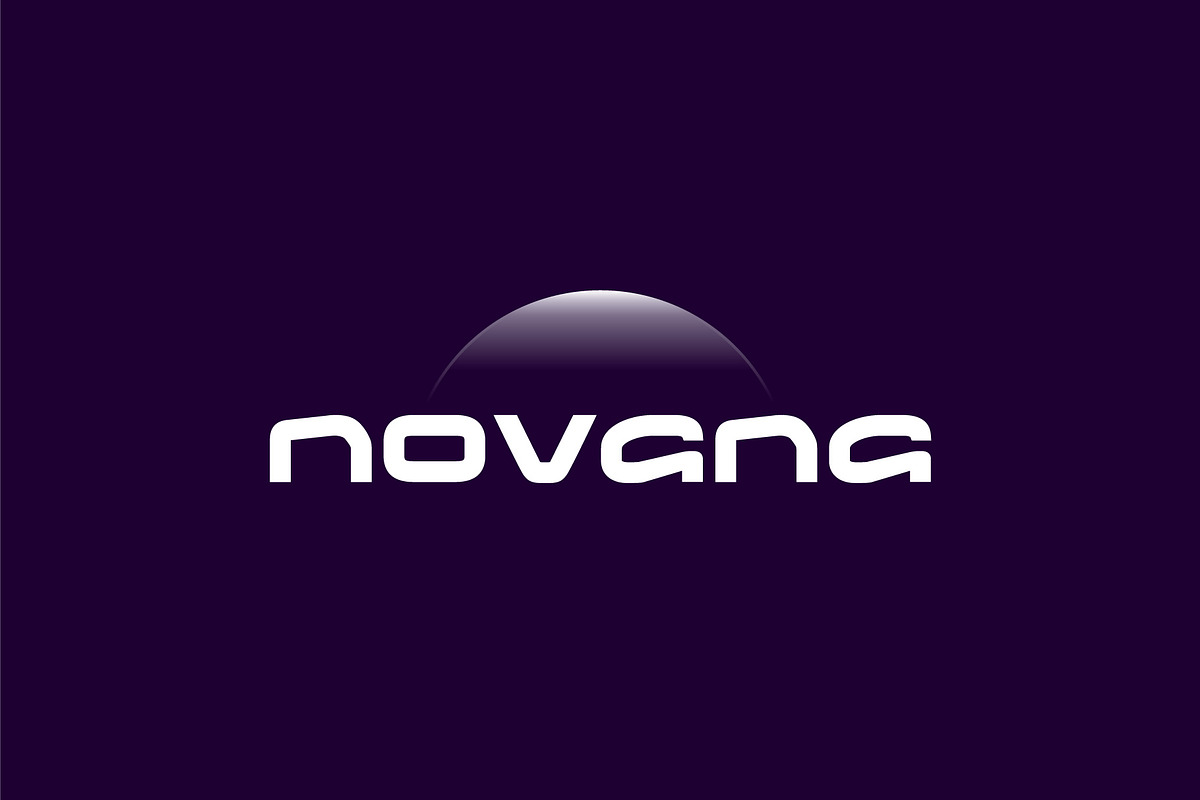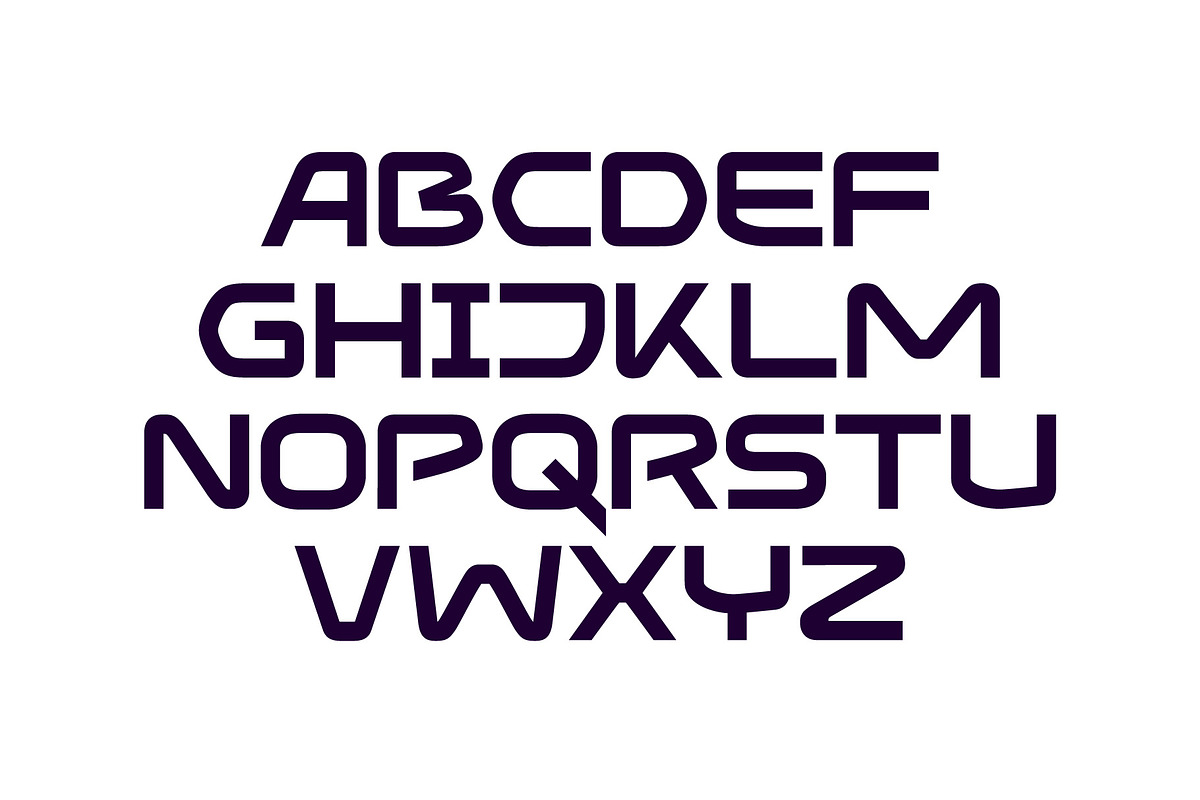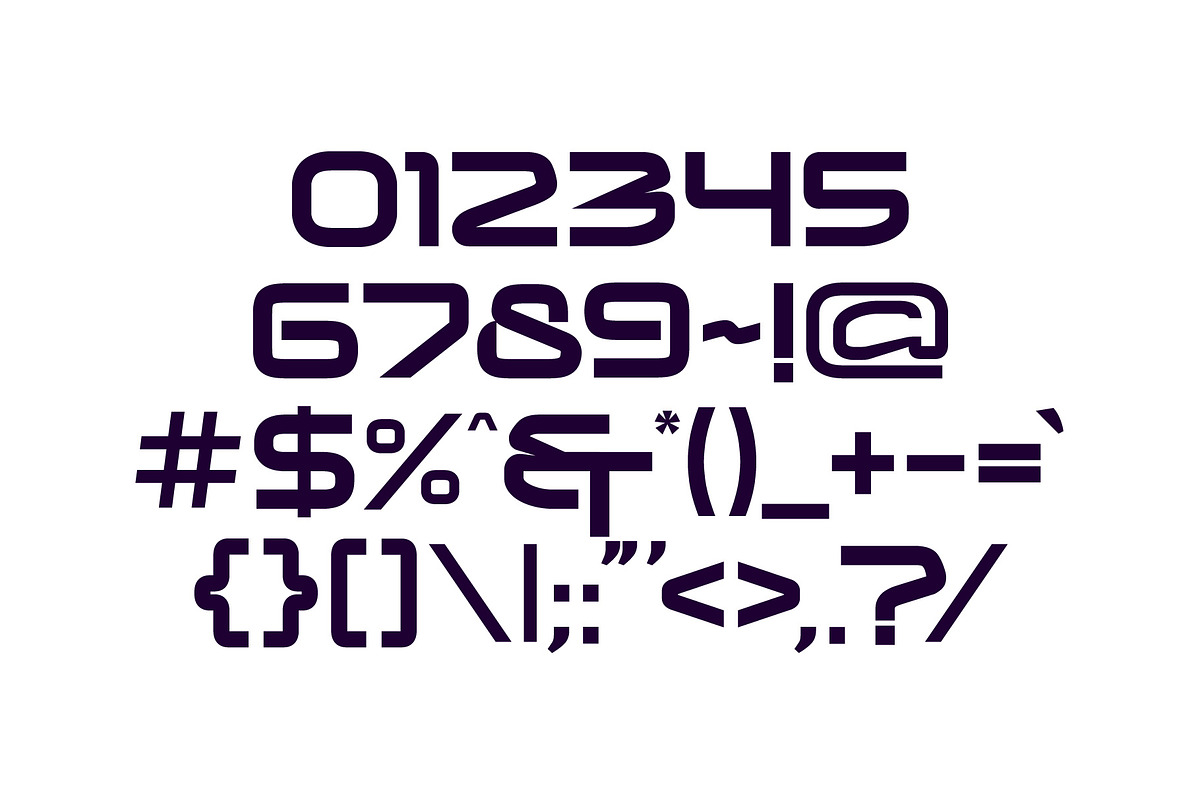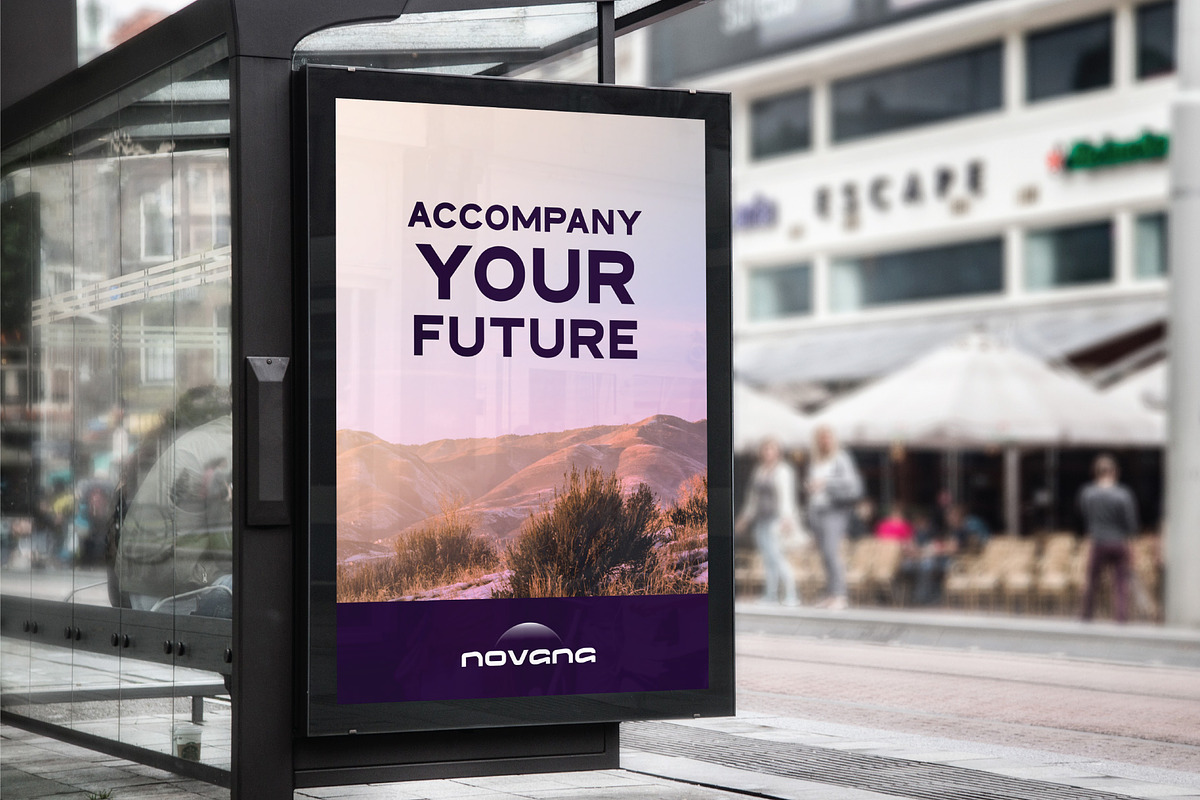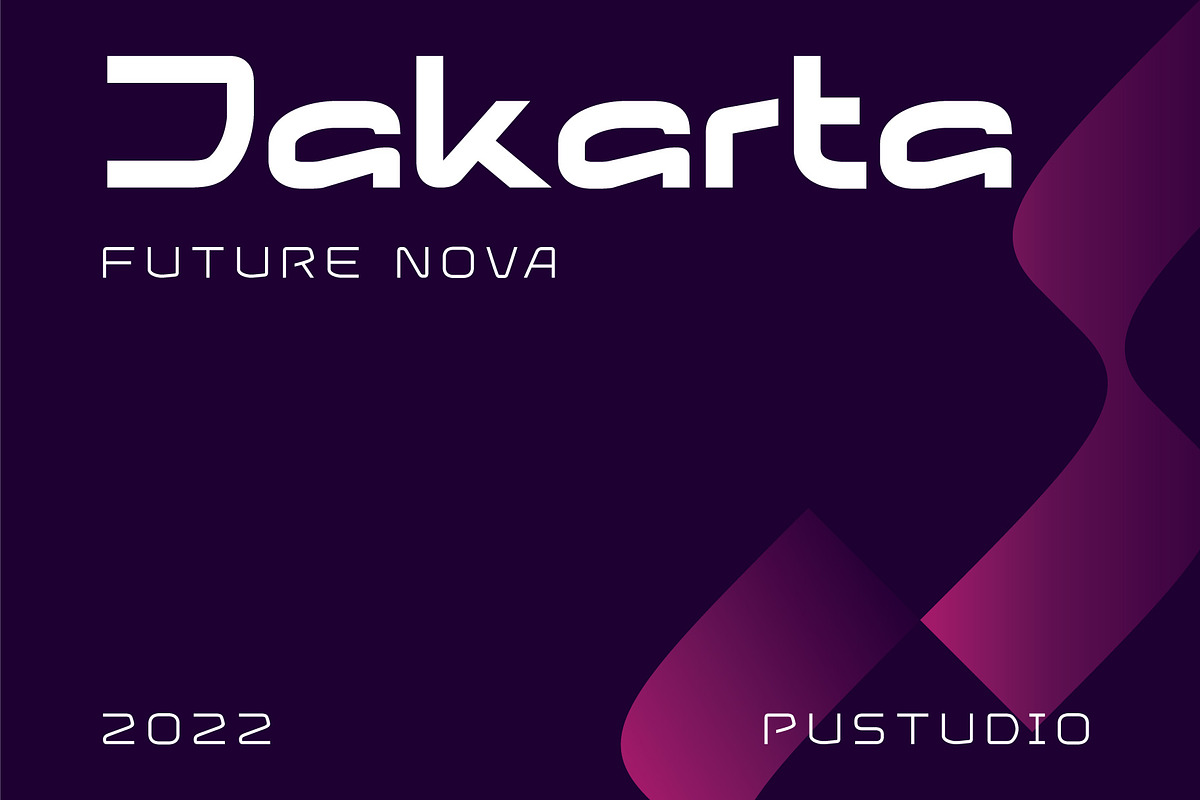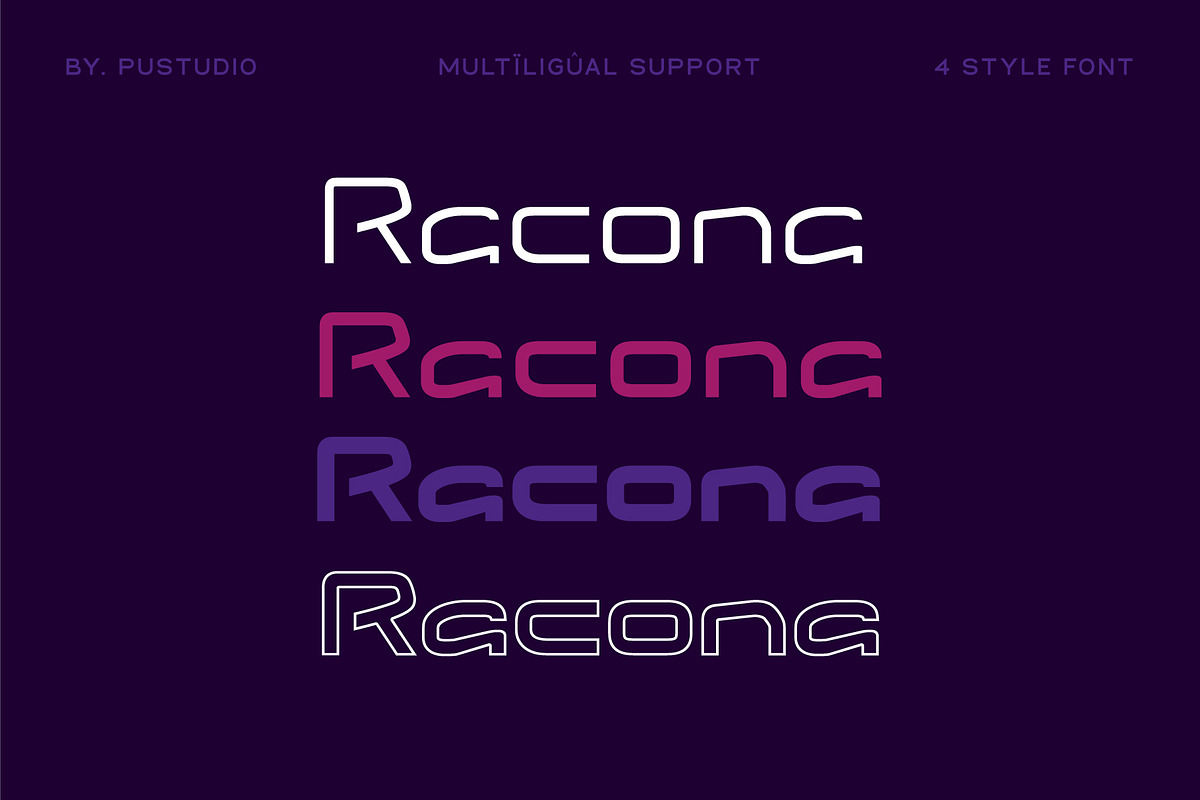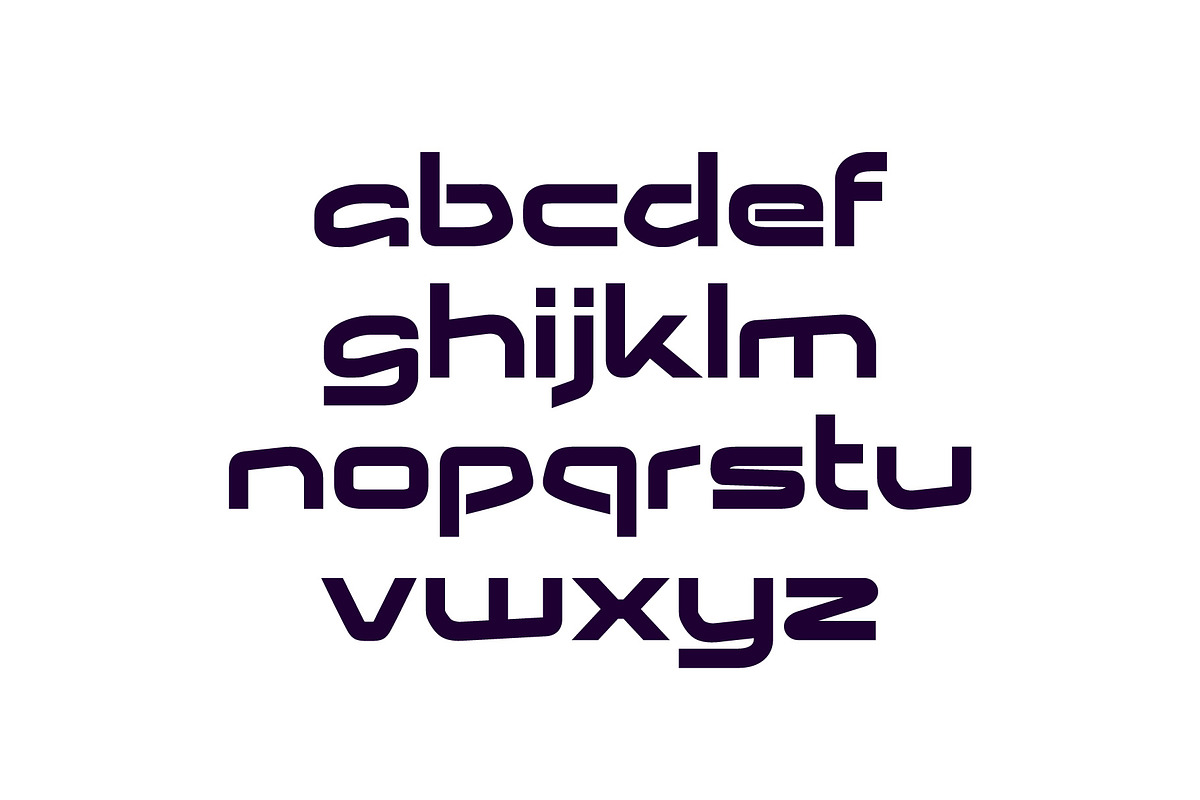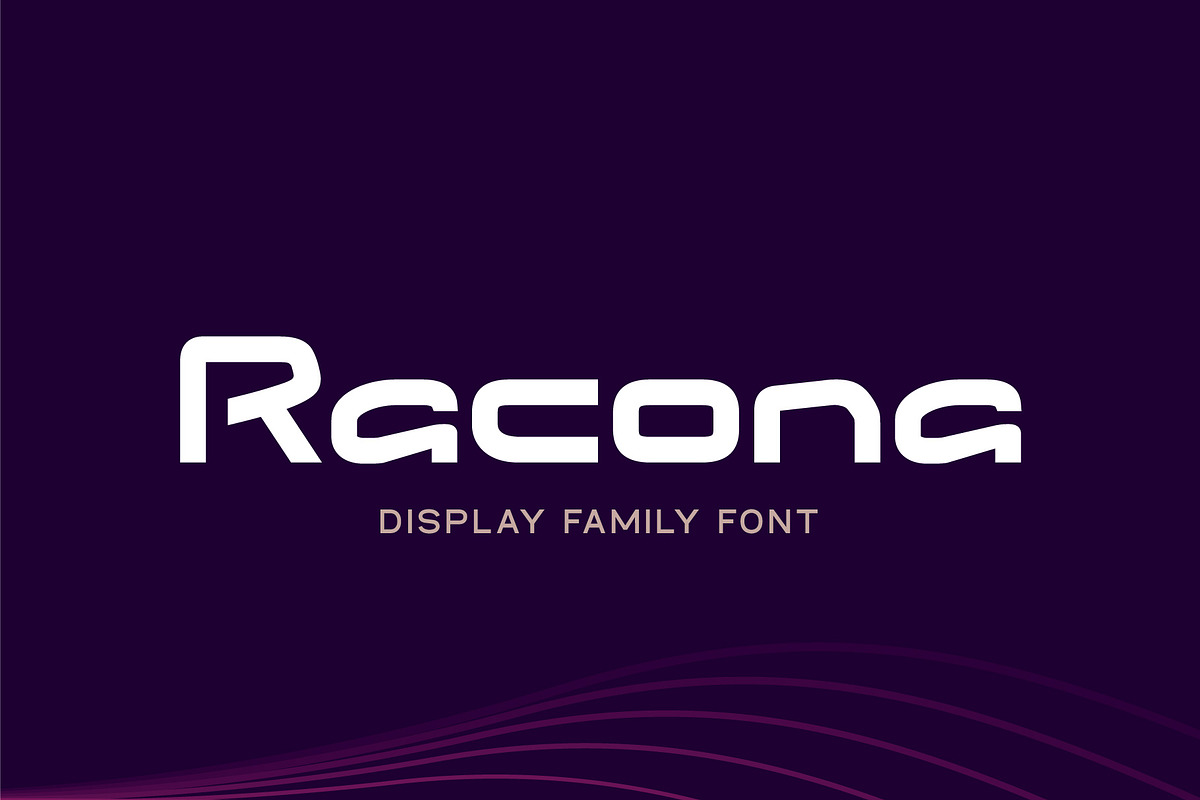
Racona
Racona is a display font. It can fit into a very large array of projects, so add it to your creative streak and watch how it makes it stand out!
Available in 4 styles; -Light -Regular
- Bold
- Outline Bold